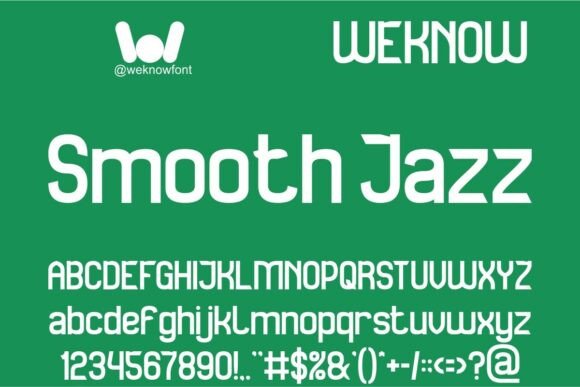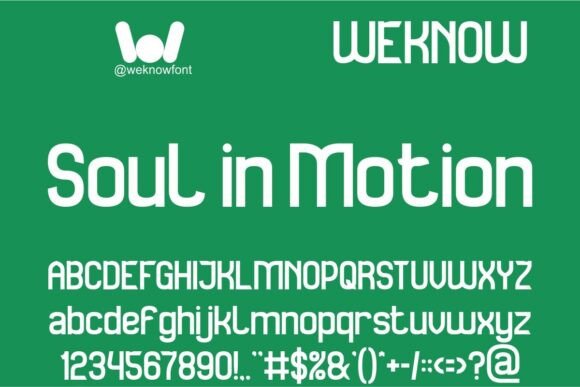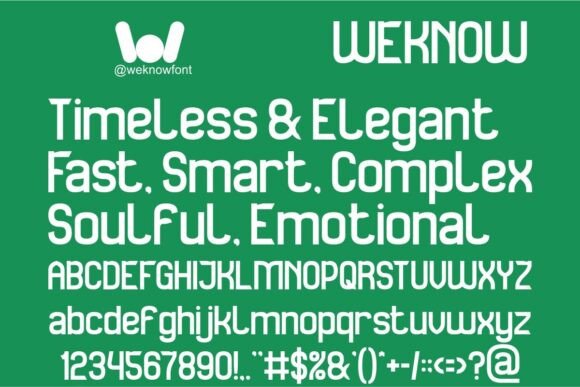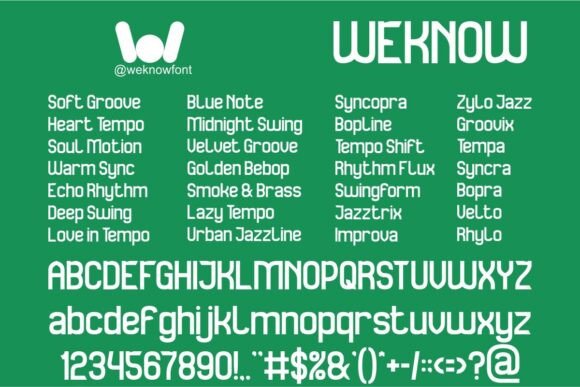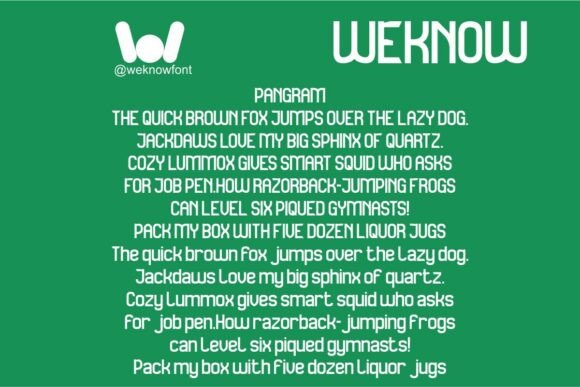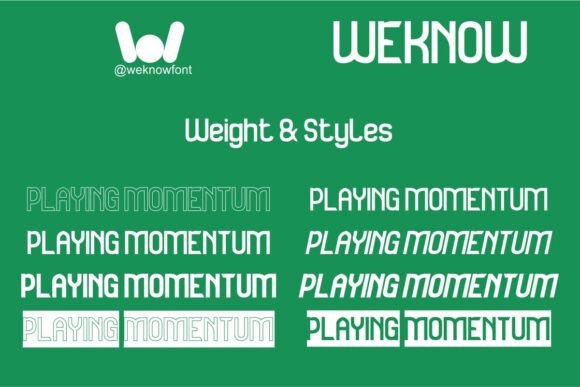
Introduction to Playing Momentum Font
Have you ever stumbled upon a font that sparks a wave of creativity, transforming your design from ordinary to extraordinary? That’s exactly what happens when you come across the enchanting Playing Momentum Font. Its vibrant energy and geometric flair can instantly elevate your design project, making it stand out from the crowd.
As a designer, you’re constantly on the lookout for that perfect design resource to give your creative project an edge. With the Playing Momentum Font, you’ve got just that – a high-quality, versatile font that can add a touch of whimsy to even the most mundane of designs. Whether you’re working on a logo, headline, or apparel design, this font is sure to bring a smile to your face and a dash of joy to your audience.
Key Features of Playing Momentum Font
- Unique, high-quality font design perfect for creative projects and design resources.
- Designed to work seamlessly with a wide range of font sizes, from small to large, without compromising on readability.
- Perfect for use in digital design, including web design, graphic design, and UI/UX projects, due to its clean and modern aesthetic.
Honest Review: Playing Momentum Font
Here are some things that really stand out about the Playing Momentum Font:
- ✨ Highly versatile font that can be used for a variety of designs, from logos to web headers.
- ✨ Supports both Latin and Cyrillic character sets, making it a great option for international designs.
- ⚠️ The font is a bit on the heavier side, so it might not be the best choice for minimalist designs.
Overall, I’m really impressed with the Playing Momentum Font. It’s a solid design resource that’s definitely worth checking out, especially if you’re looking for a high-quality font for your next creative project.
Playing Momentum Font
The Playing Momentum Font is suitable for various creative projects, including:
- Logo creation
- Brochures